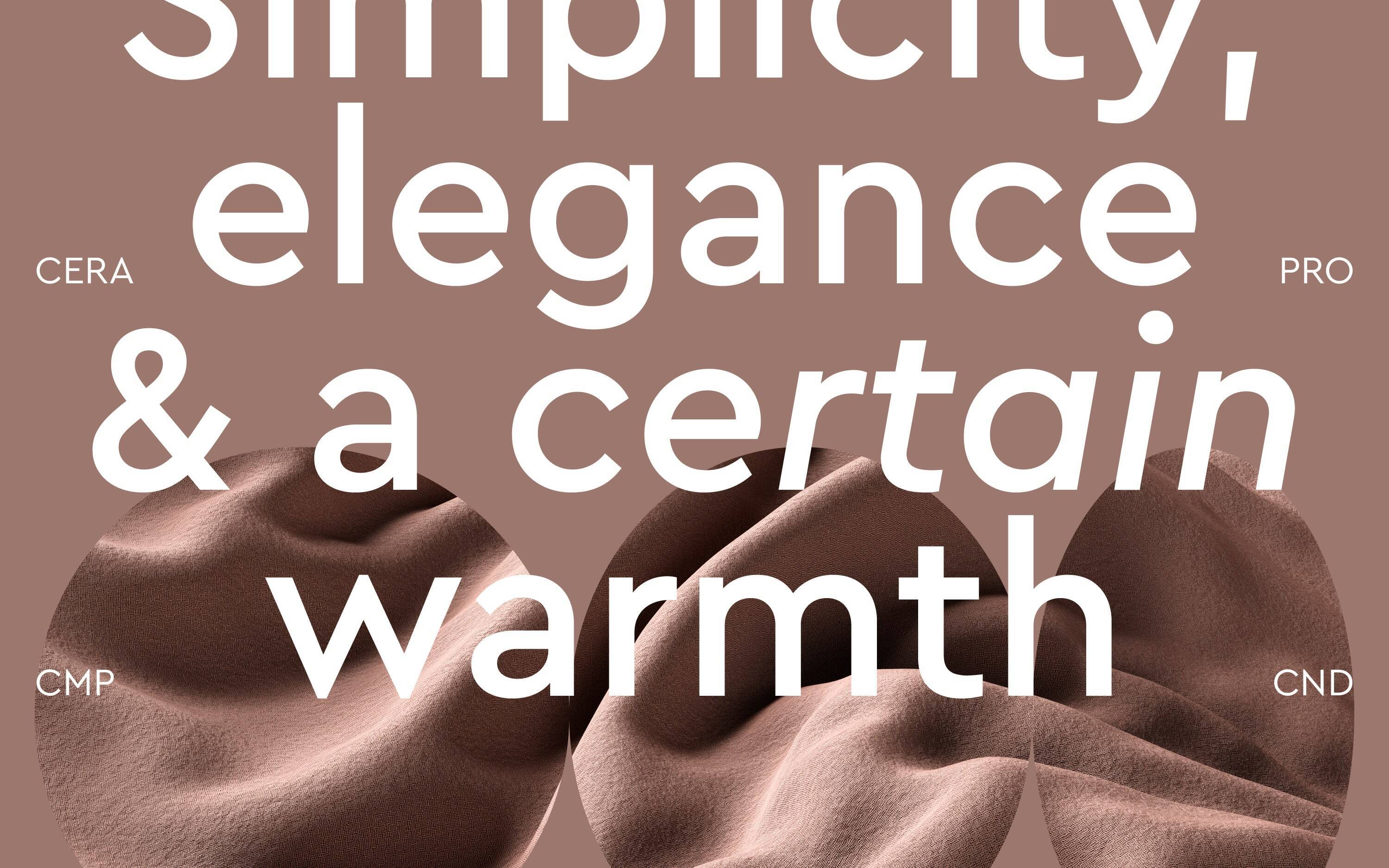
From 2013 to 2015, german type designer jakob runge of foundry “type me! Ll circular offers a fresh take on the genre of the geometric grotesk. In print, on display, and in multiple languages.
Cera pro, a geometric sans serif font family with lots of opentype features and multi language support for latin, cyrillic, and greek letters. Introducing cera round pro sans serif family! It comprises 20 weights, matching italics, and 10 uprights.
Designed by lisa fischbach and jakob runge, cera round pro is a sans serif font family. Matching italics, cautiously sloped a lively 10º, invigorate with a sprint of rotalic flavor. Suitable for all any creative project.